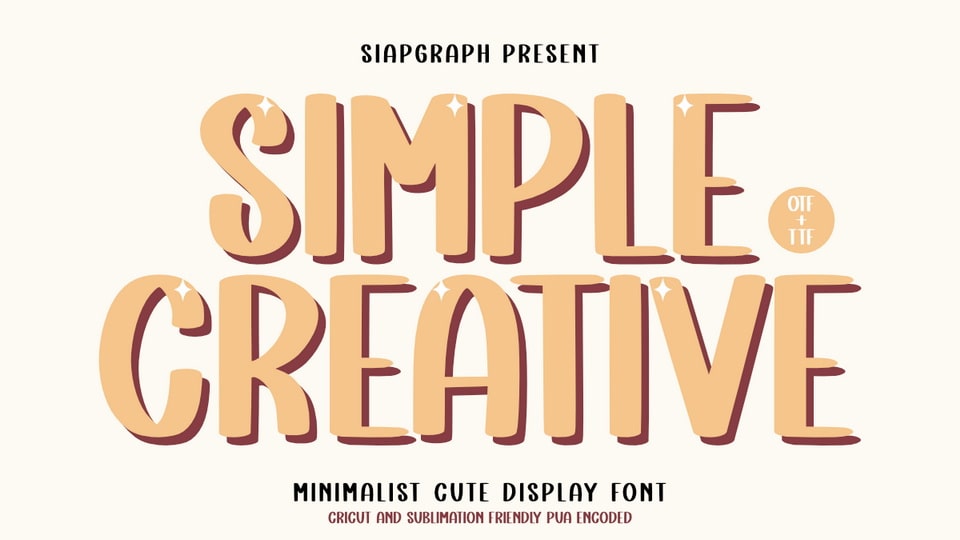
Download Simple Creative font, a minimalist yet cute hand drawn display typeface that brings a playful and approachable vibe to your creative projects.